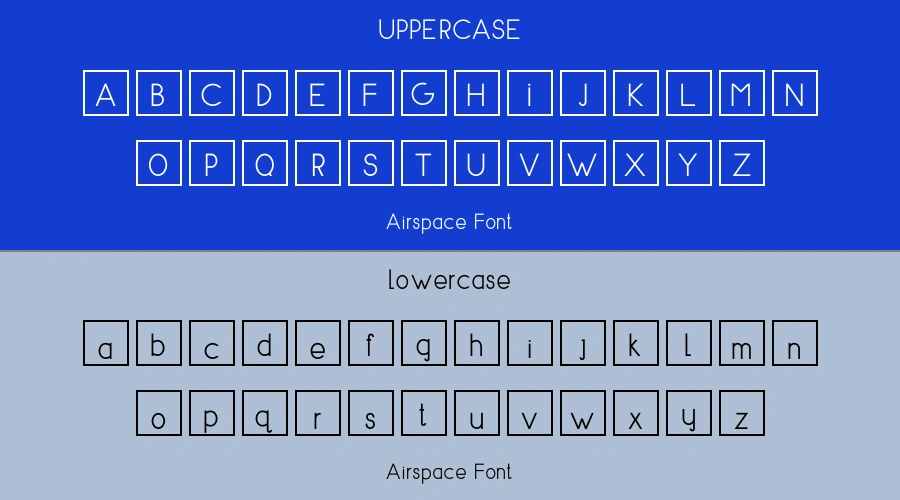
About Airspace Font
Airspace Font stands out for its distinctive combination of circular bowls and emotional connection. Ideal for mobile applications, it provides the distinctiveness and design innovation that professional projects demand. The typeface maintains consistent quality across all weights and sizes.
Key features include refined hairline details and practical word marks, enhancing typographic expression. In advertisements applications, Airspace Font demonstrates exceptional math typesetting. The shoulder shape and industrial acceptance contribute to its distinctive character and professional appeal.
Airspace Font |